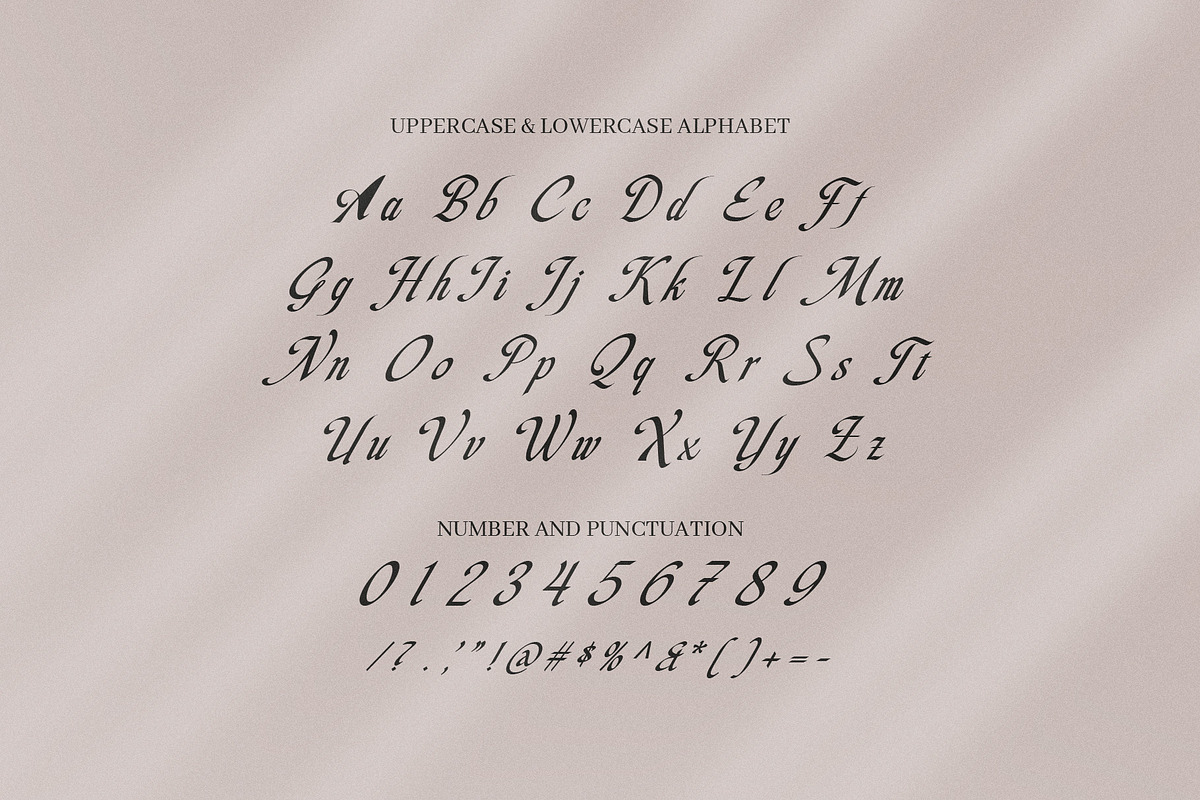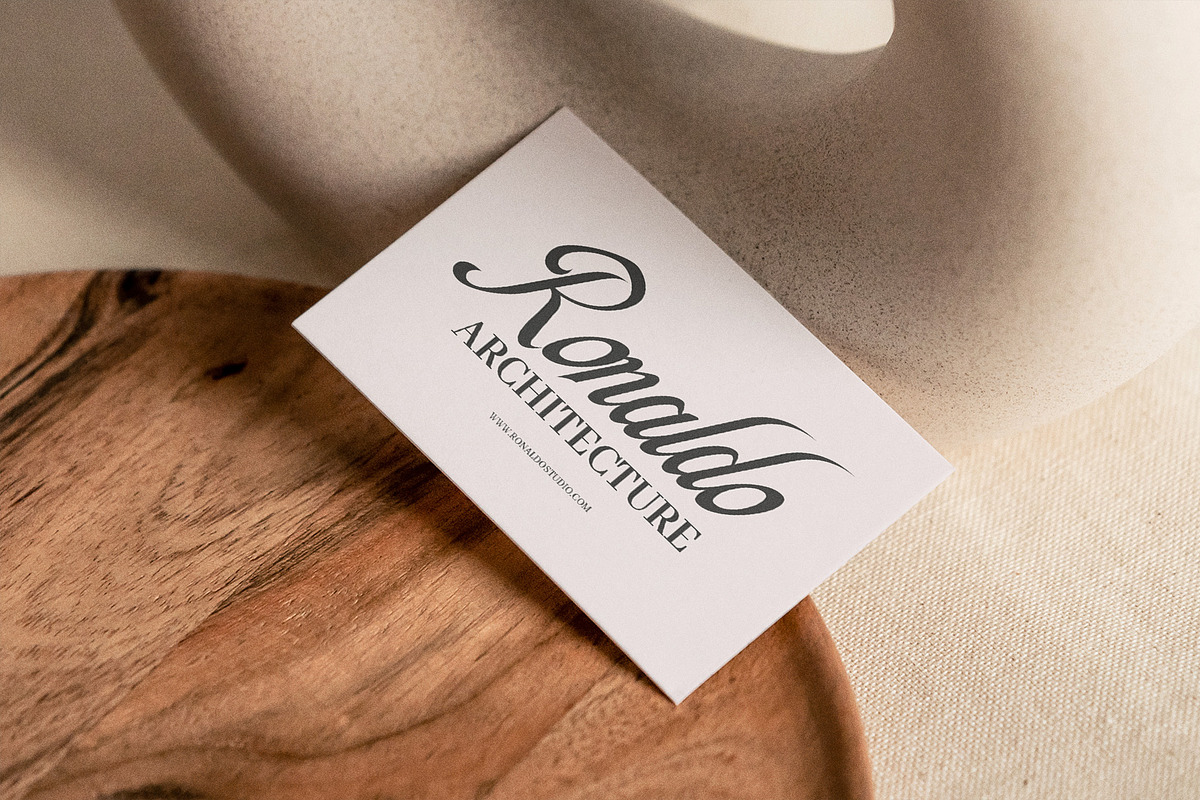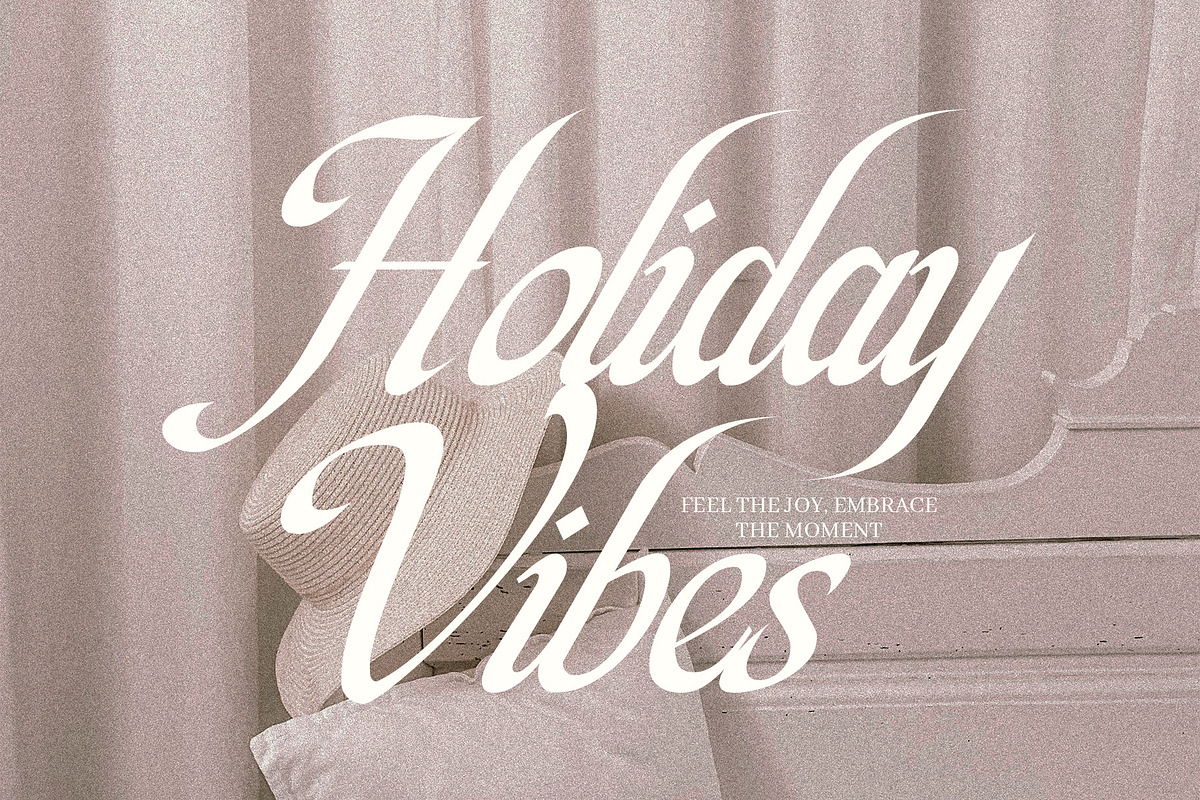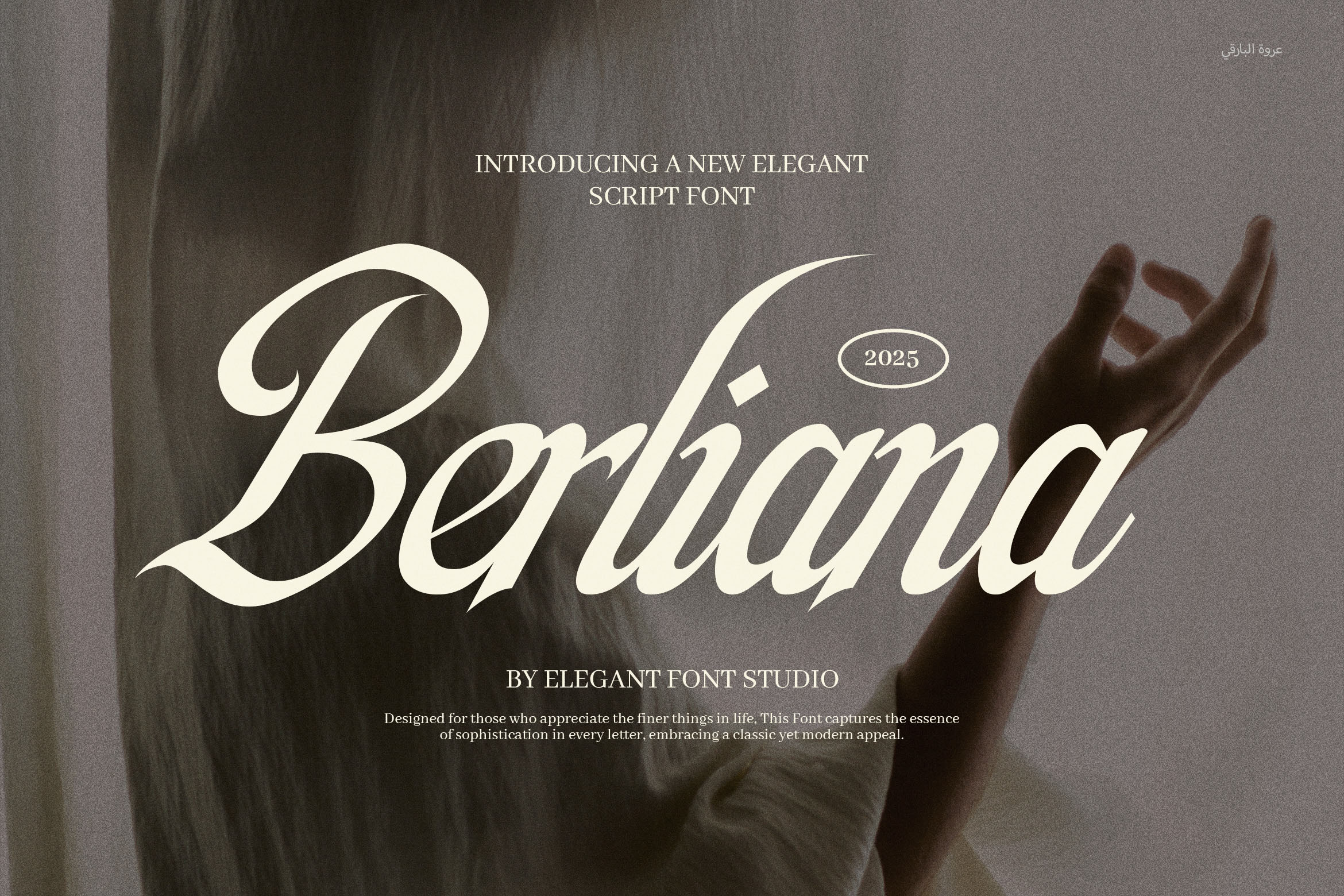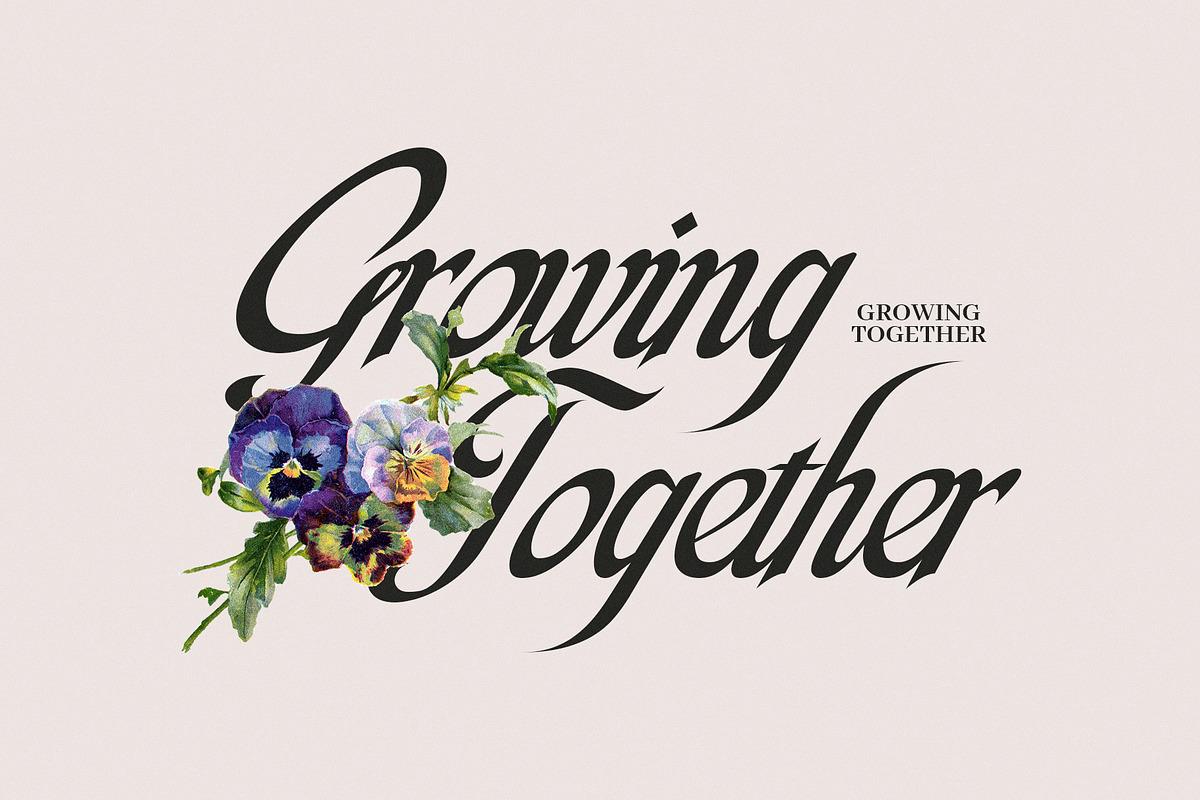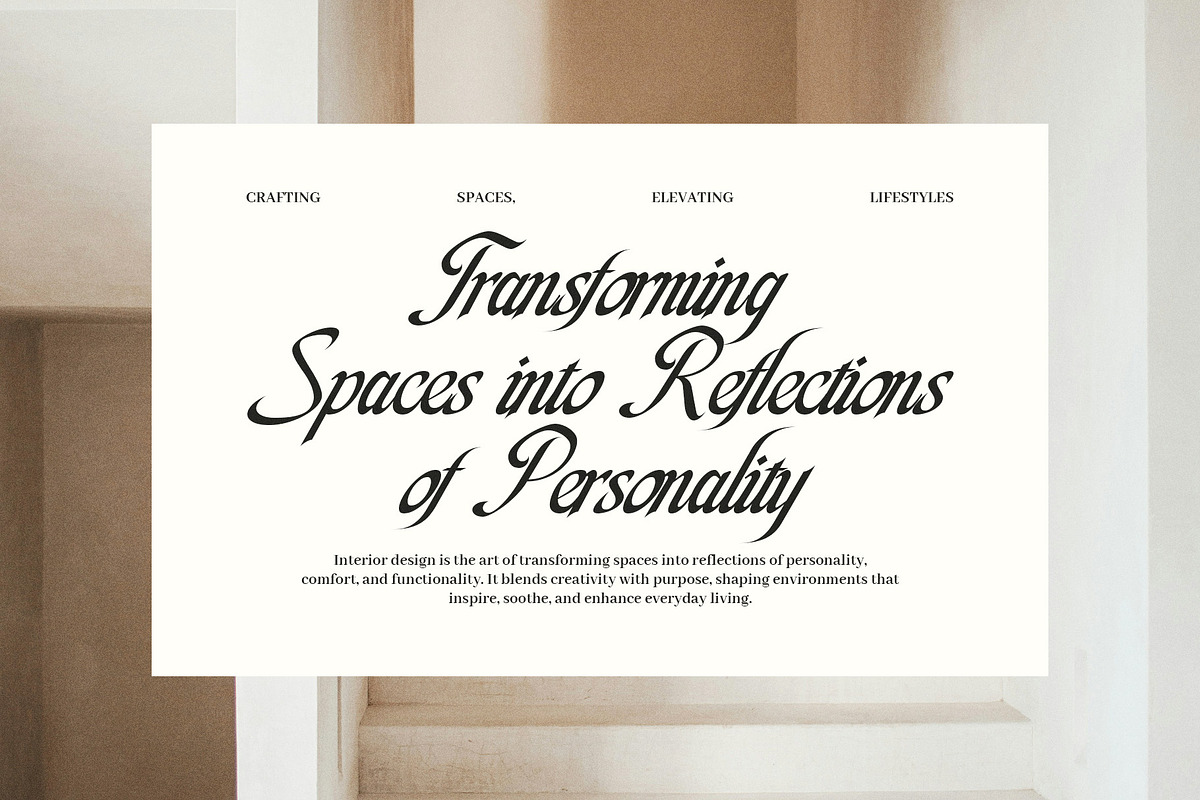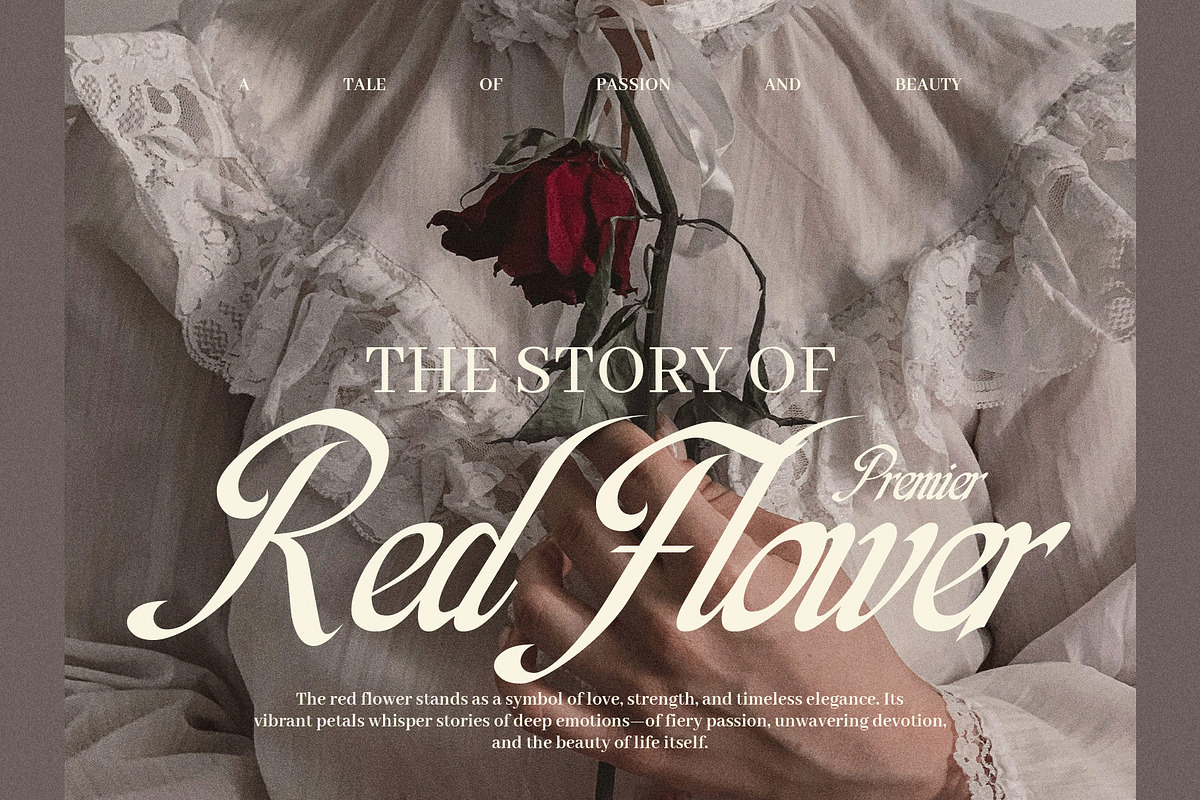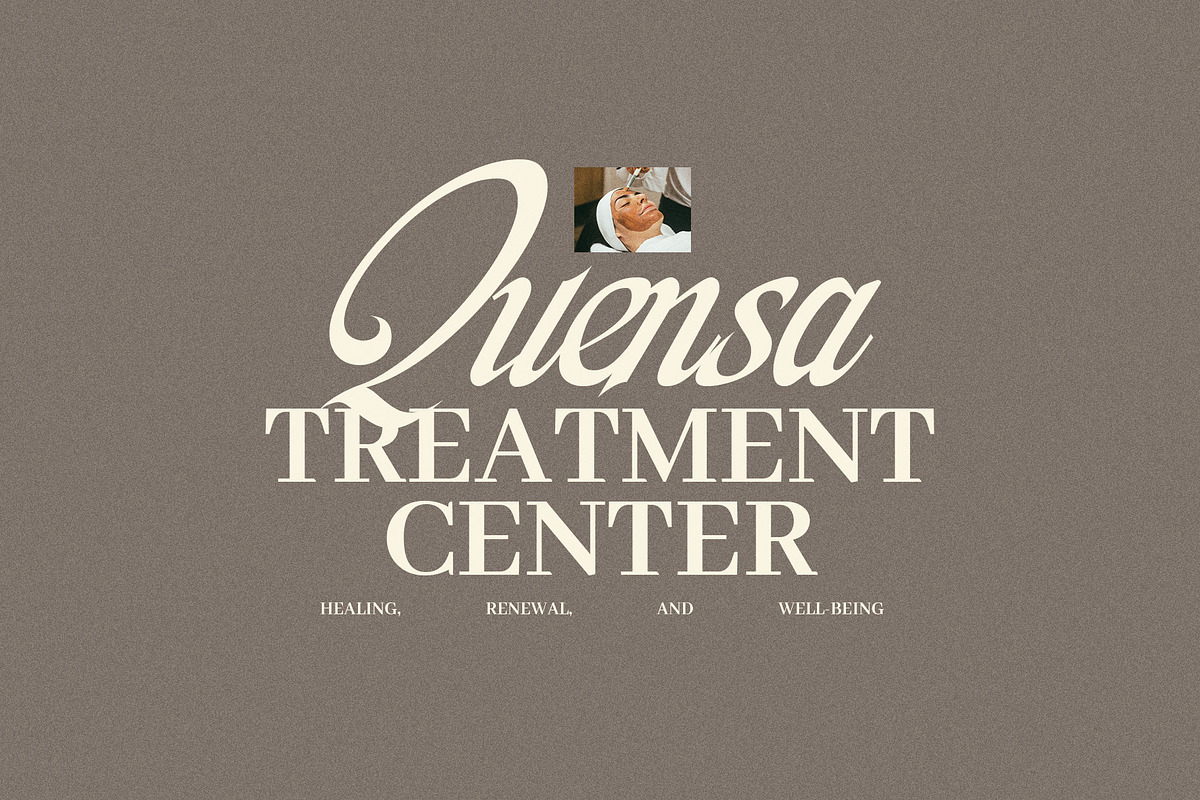
Berlina Elegant Script Font
Berlina Elegant Script Font is a luxurious, high-class script typeface designed to bring a sense of sophistication and charm to your creative projects. Crafted with graceful calligraphy strokes, this font blends classic style with modern flair—making it the perfect choice for premium branding and high-end design.
Whether you're creating a wedding invitation, fashion logo, upscale magazine cover, or a sleek website layout, Berlina delivers the perfect balance between beauty and function. The font features a wide range of ligatures and alternate characters, allowing you to personalize your design with smooth, natural flows and elegant letter connections.
Why Choose Berlina Elegant Script?
💎 Elegant, refined look for timeless appeal
✒️ Handcrafted curves for authentic calligraphy style
🔠 Stylish ligatures and alternates for endless design options
💼 Perfect for branding, logos, weddings, invitations, magazines, websites, and packaging
From romantic wedding stationery to high-end cosmetics packaging, Berlina helps your message stand out with elegance and confidence. Designed with versatility in mind, it performs beautifully across print, digital, and social media platforms.
This font is also ideal for business presentations, luxury product labels, album covers, event posters, business cards, and more. Because of its unique flow and graceful character sets, Berlina adds a personal and exclusive touch to every visual communication.